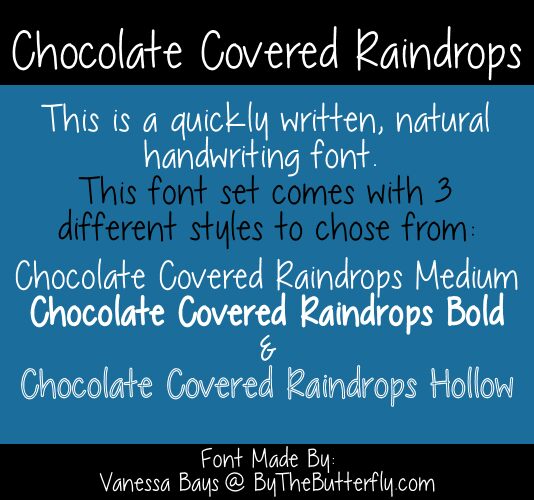
Chocolate Covered Raindrops is a free handwritten font with tall, slender letters and an easy, unpolished stance. Its mostly even strokes bend through loose curves, and small shifts in height and alignment make every line feel personally written.
The wiry lettering echoes simple doodles and line drawings, making it apt for stationery, children's publishing, and blog graphics. It also suits cafe menus and food packaging, where the relaxed shapes resemble a note written on the surface. On labels, the words can become part of the illustration.